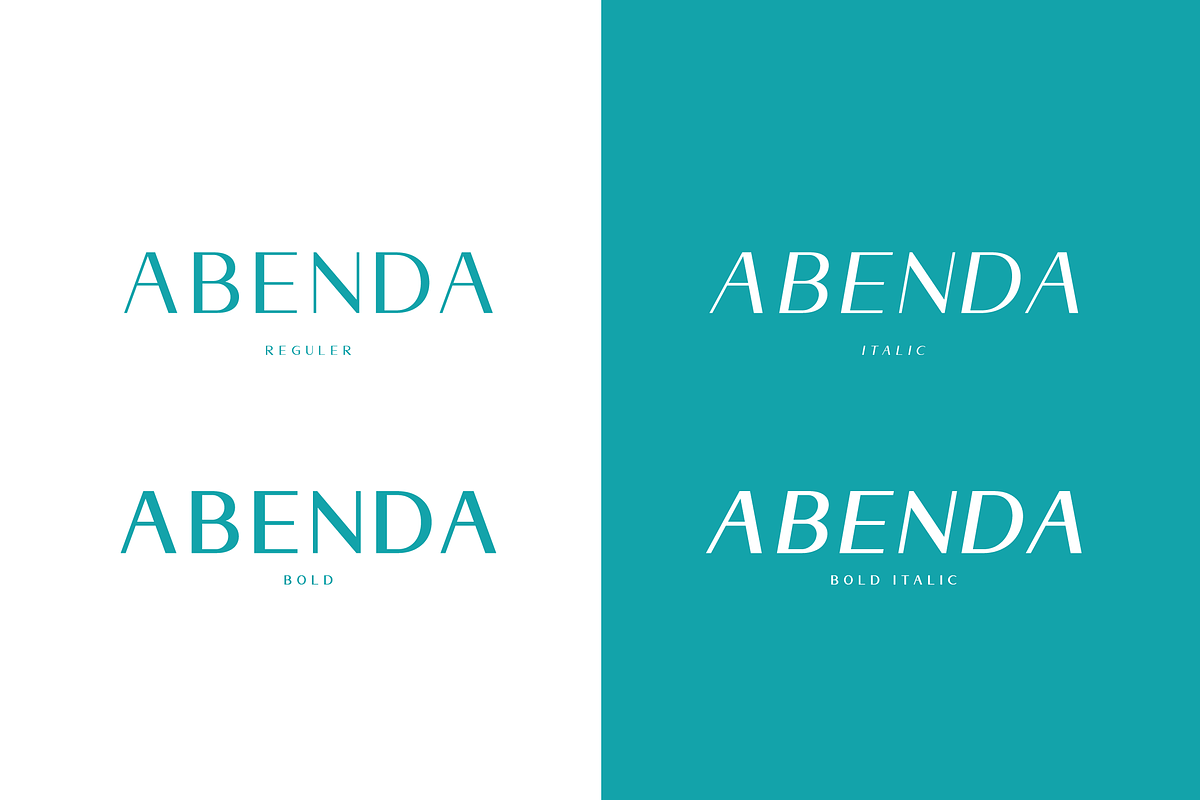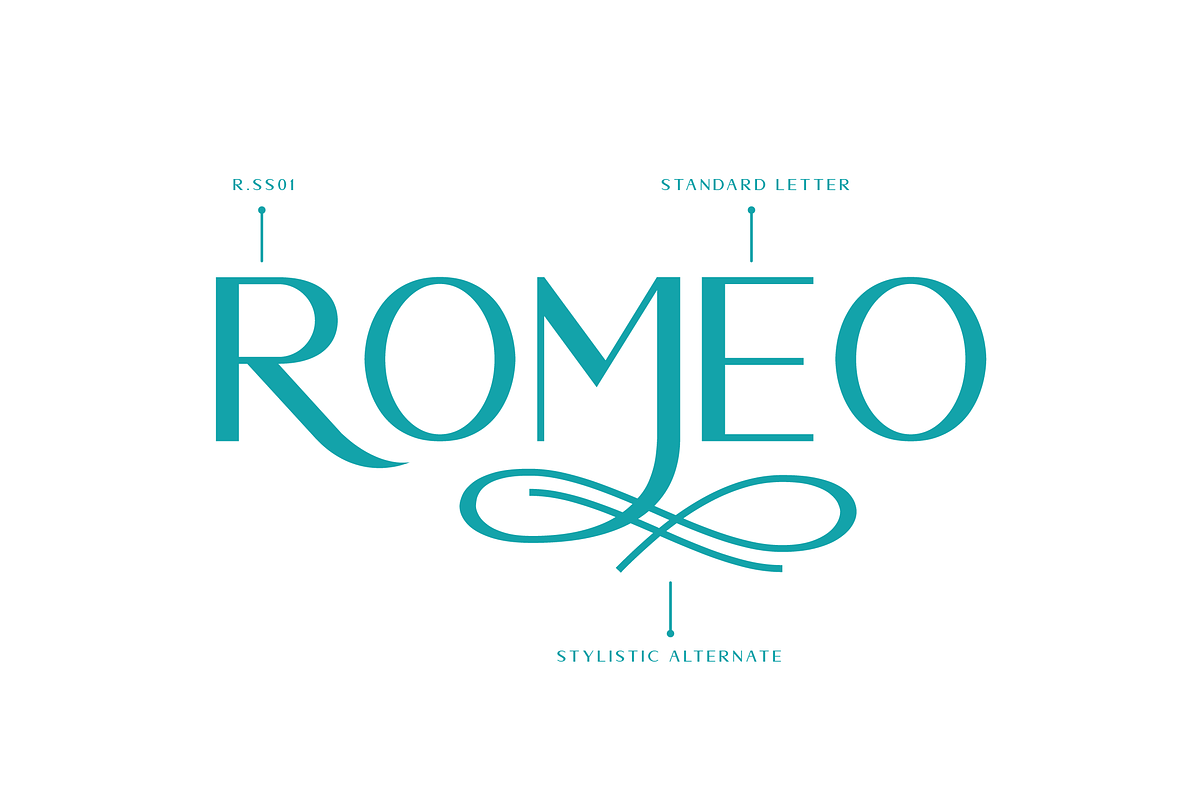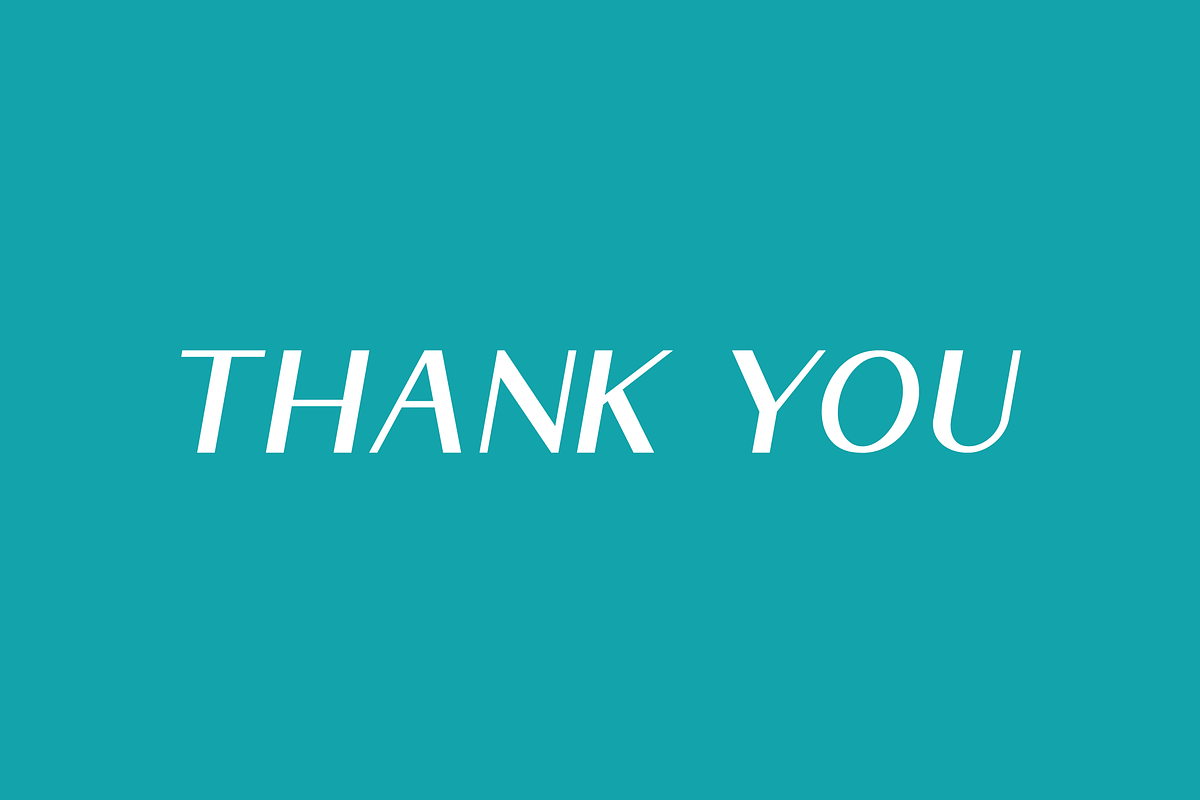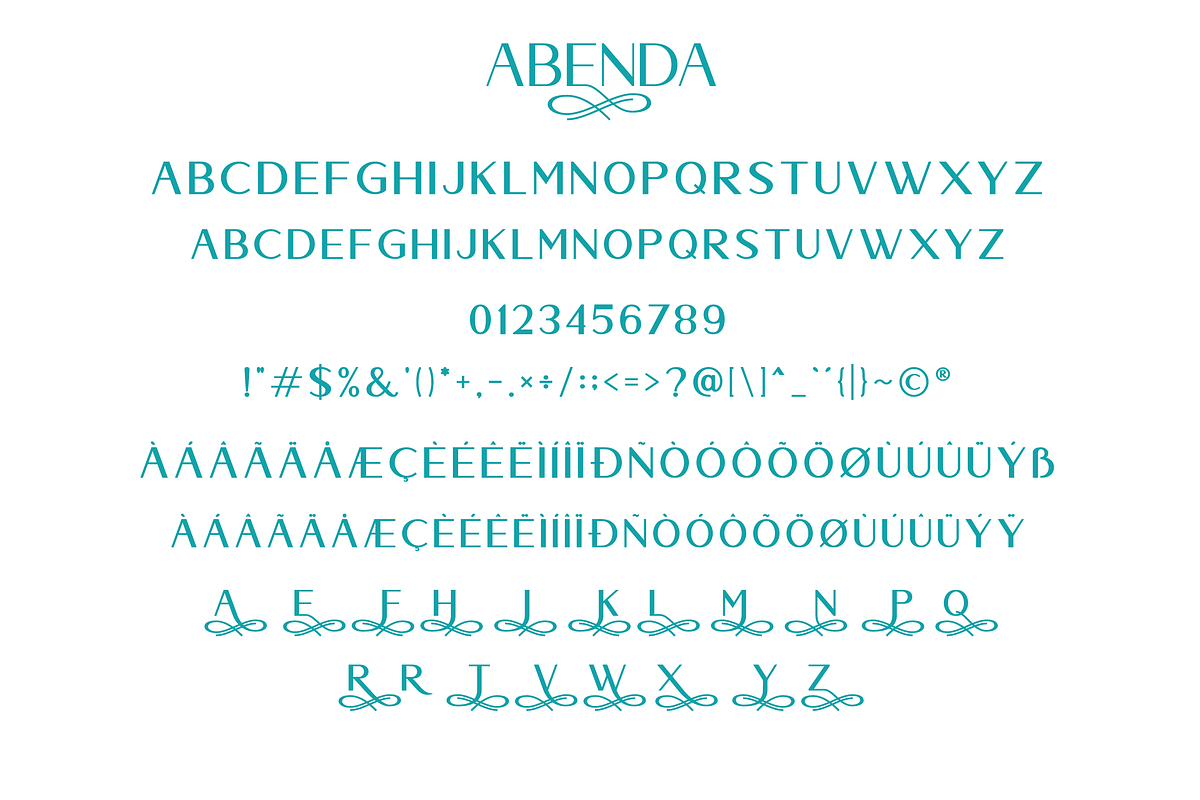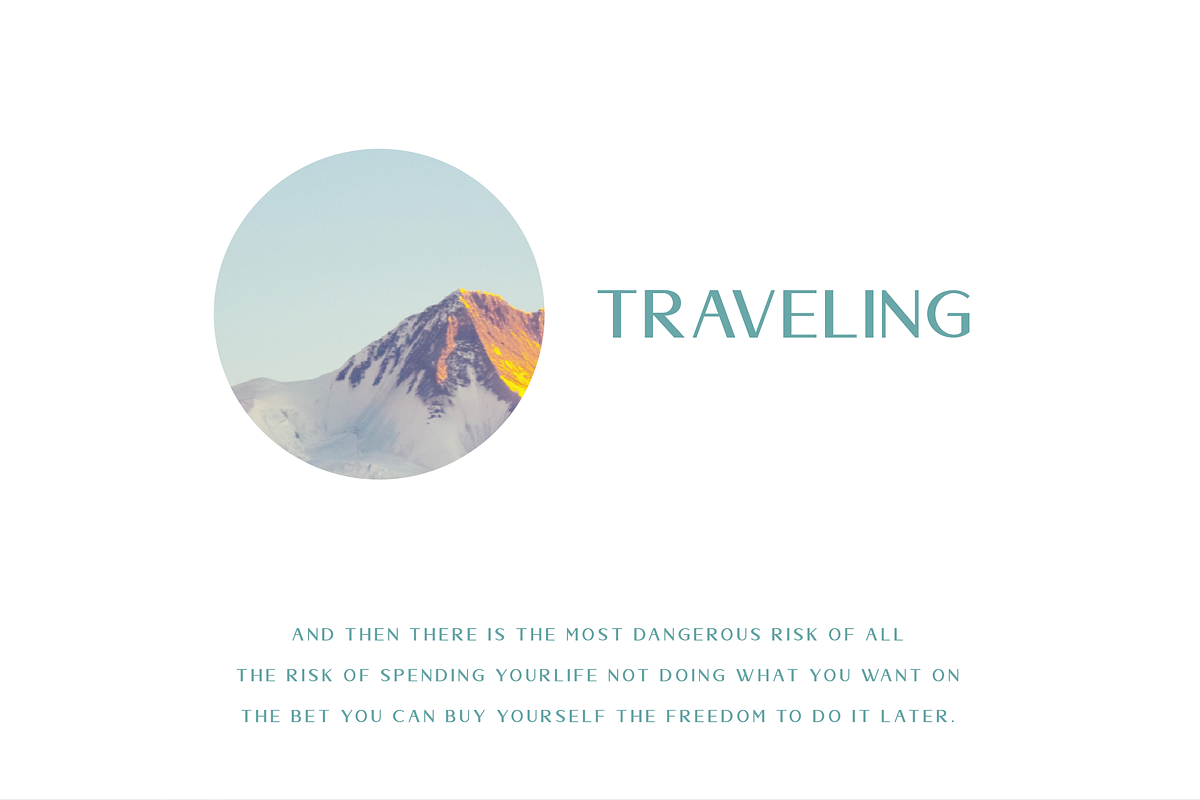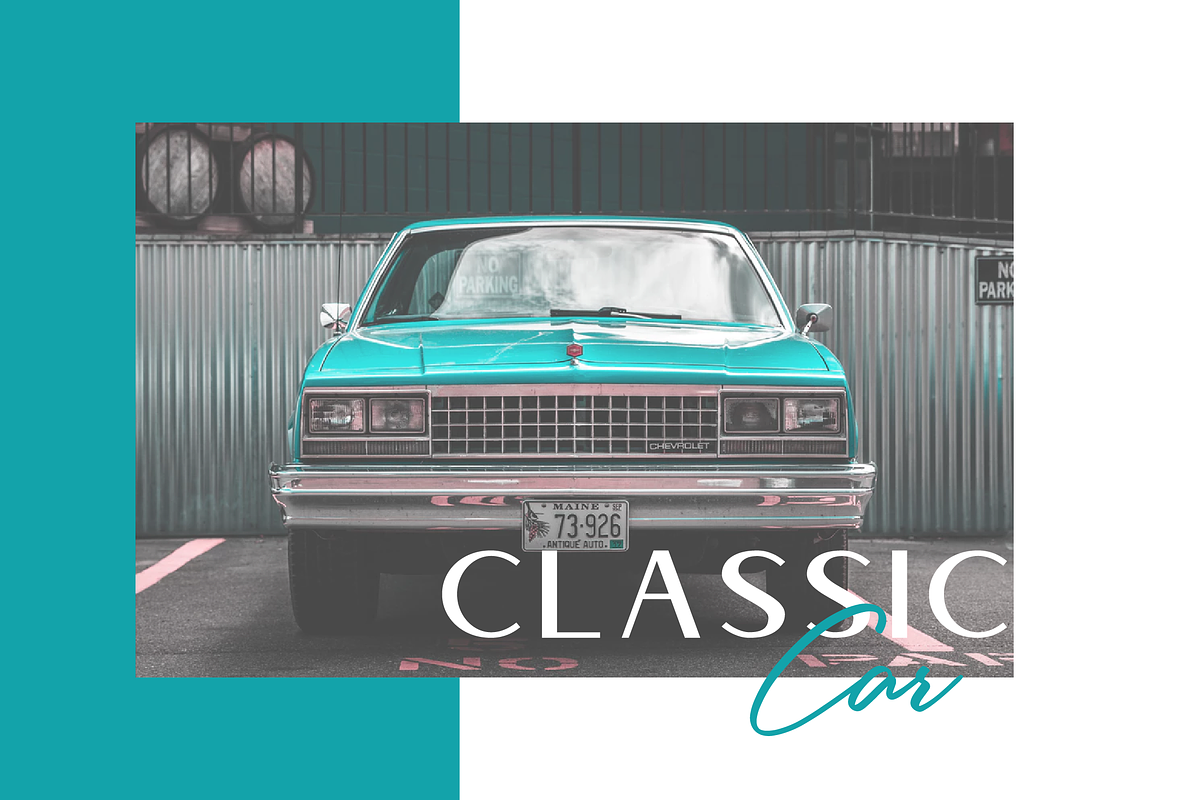
Abenda - Elegant Typeface
Introduce My New Font: Abenda - Elegant typeface
Abenda is elegant sans serif family with the modern typeface concept. Abenda very easy to use and has been accompanied by elegant and classy alternatives. Abenda also suitable to be combined with other fonts, as on page 5, I applied the font with Dallard Modern Calligraphy Font. Abenda can be used for various needs such as logos, posters, art, branding, magazines, stationery, websites, etc.
Let's fly together with Abenda
Uppercase and Lowercase Letter
Number and Punctuation
Multilingual Accent : ÀÁÂÃÄÅÆÇÈÉÊËÌÍÎÏÐÑÒÓÔÕÖØÙÚÛÜÝßàáâãäåæçèéêëìíîïðñòóôõöøùúûüýÿ